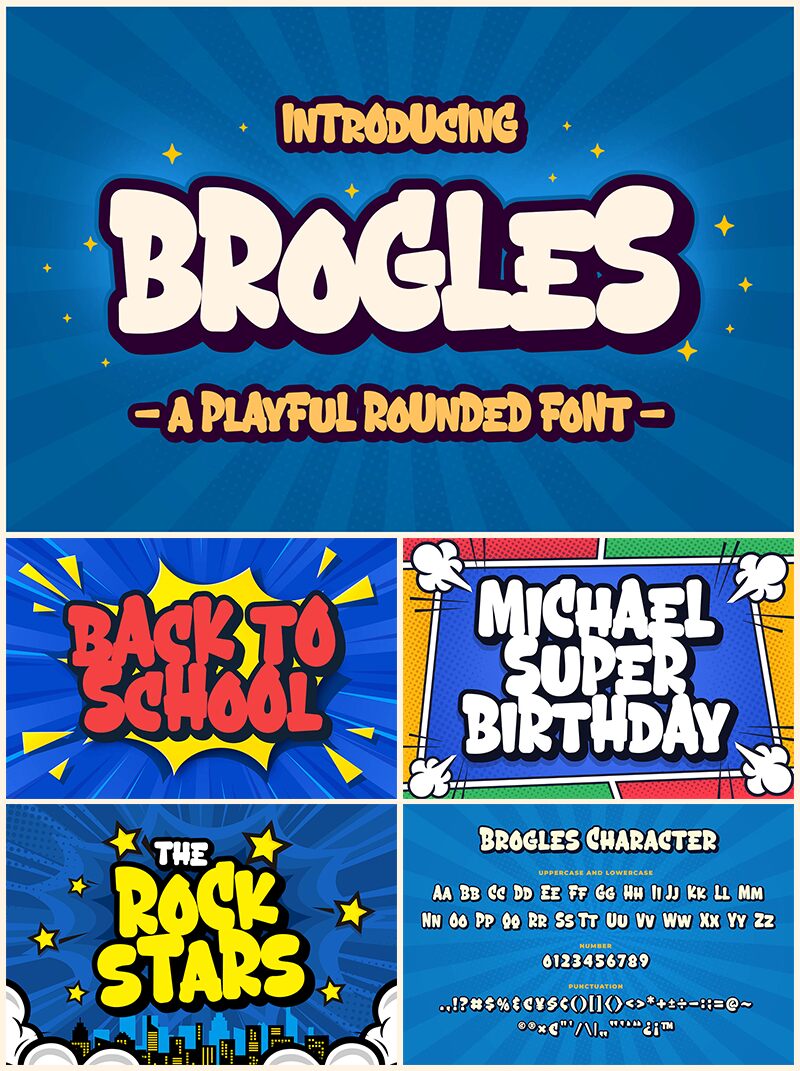
Brogles Regular
Brogles, designed by Blankids, is a captivating display font that exudes playfulness and personality. With its bold strokes and cartoonish flair, Brogles stands out with an eye-catching charm that captures attention effortlessly. The rounded forms and lively curves evoke a sense of fun, making it perfect for playful branding or vibrant merchandising.
Ideal for children's products, event invitations, or quirky advertisements, Brogles adds an appealing touch to any creative project. Its striking visual appeal plays well in settings where whimsy meets sophistication, striking the perfect balance between boldness and approachability. Whether used in headlines or logos, this font injects energy and excitement into any design context while maintaining a lighthearted spirit.